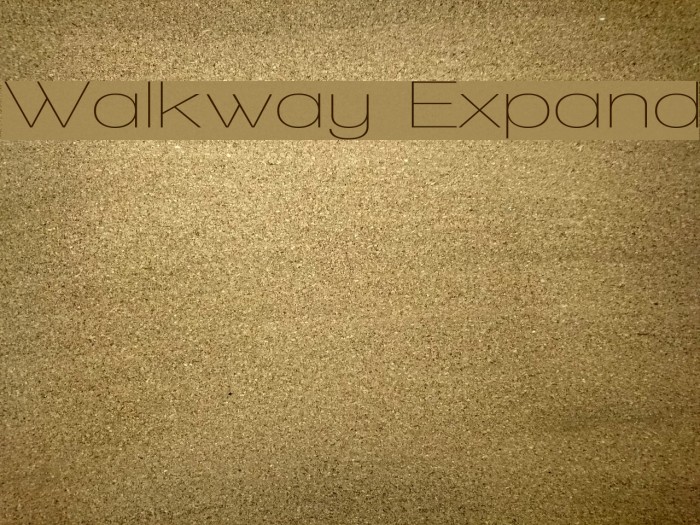
Walkway Expand Font
This font features a clean, minimalist design with a geometric structure. The characters are evenly spaced and have a uniform line weight, giving it a modern and sleek appearance. The uppercase letters are tall and slightly wider, while the lowercase letters maintain a consistent height, enhancing readability. The numerals are clear and straightforward, matching the overall aesthetic. Special characters are designed with the same simplicity, ensuring they blend seamlessly with the rest of the typeface. This font's expanded width and open forms make it ideal for projects that require a contemporary and airy feel.
A modern, geometric sans-serif font with expanded width and consistent line weight.
- Proposed Projects: Ideal for branding, advertising, and web design projects that require a modern and clean aesthetic.
- Width: Expanded
- Use Case: Headlines, Logos, Web design